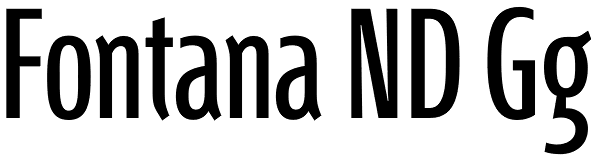
Fontana ND
Designed for the printing of a magazine, the Fontana Sistema was based fundamentally on the Spanish language as its natural and cultural context. Due to the spanish colonization of America, the spanish language has been influenced by native american...